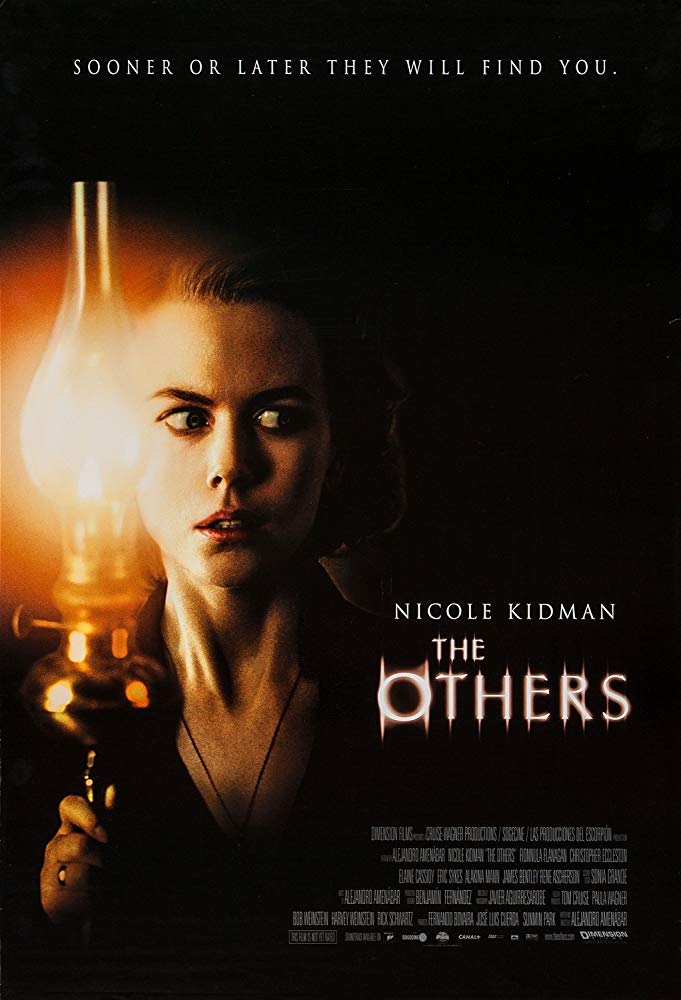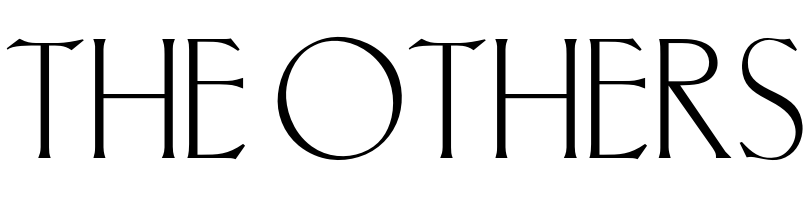
The Others (film) Font
Fonts in UseThe Others is a 2001 supernatural horror film directed by Alejandro Amenábar. The story follows a mother and her two children who live in an isolated mansion on the Isle of Jersey, and are haunted by mysterious and terrifying occurrences as they await the return of the father from the war.
The movie poster title's serif font resembles Carlton, a digital version of the Carlton typeface by Stephenson Blake Foundry, based on Fritz Helmut Ehmcke's 1908 Ehmcke-Antiqua design. An alternative to Carlton is Cuento by CastCraft, which can be downloaded for free from the Fonts Used Section.